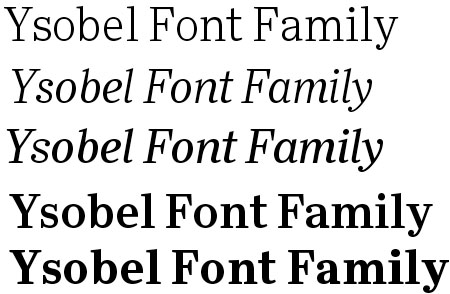
New Typeface Family Well-Suited to Newspapers, Periodicals
The Ysobel (pronounced “Isabel”) typeface family is intended primarily for newspaper and periodical copy. Designed by Robin Nicholas, head of typography at Monotype Imaging Ltd., and type designers Alice Savoie, also working at Monotype Imaging’s UK subsidiary, and Delve Withrington based in the U.S., the Ysobel typefaces were designed for both text and display applications.
According to Nicholas, the idea for the Ysobel faces started when he was asked to create a custom, updated version of the classic Century Schoolbook typeface, which was designed to be an extremely readable typeface – one that made its appearance in school textbooks beginning in the early 1900s. “I wanted to give the design a more contemporary feel, although the client ultimately decided to keep their typeface closer to the original. The project nevertheless gave me ideas for a new design,” said Nicholas.
Development began with the text version of Ysobel, which comprises eight fonts. All weights feature lining and old style numerals, fractions, superior numbers and extended Latin language coverage. Small caps are also available in the Ysobel Pro Regular font. The 12-font Ysobel Display Pro family is a completely redrawn version of Ysobel; it is narrower and features other nuances for improving the design’s appearance at large text sizes.
“Ysobel has the soft, inviting letter shapes of Century Schoolbook but contrasts these with more angular serifs,” said Haley. Its capitals are also narrower than those of Century Schoolbook, and the lowercase letters are more full-bodied. In addition, curved terminals, such as those in the “C,” “c” and “e,” were drawn as open shapes to aid readability in text copy. Other changes were added to ensure character legibility at small point sizes.
Nicholas, whose employment with Monotype Imaging began nearly 45 years ago as a draftsman for The Monotype Corp., has designed or co-designed several fonts including the Arial® typeface, which is used today by millions of users of the Microsoft® Windows® operating system. Nicholas has directed the design of fonts such as the Clarion® and Columbus® fonts, as well as the digital versions of many Monotype® faces including the Bell, Centaur®, Dante®, Monotype Janson, Fournier, Van Dijck®, Monotype Walbaum, Bulmer® and Pastonchi designs. Custom fonts for brand identities are also part of Nicholas’s portfolio, including faces designed for major commercial airlines, an automobile manufacturer, bank and a home furnishings company. In addition, Nicholas designed the Felbridge family, intended for both print and online use, and the Nimrod® family, a suite of fonts for newspaper text, headlines and ads. According to Nicholas, Nimrod was also a face that served as inspiration for the Ysobel design.